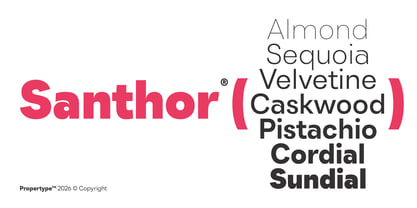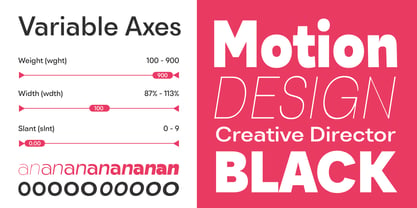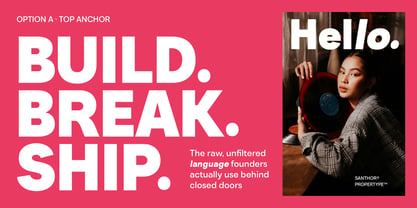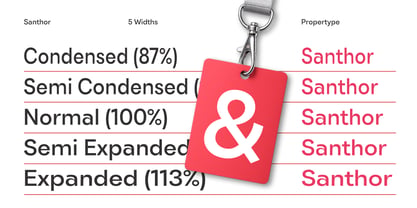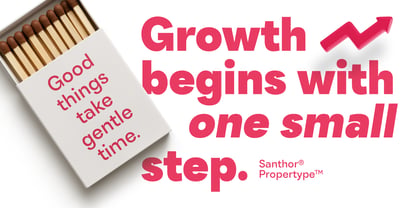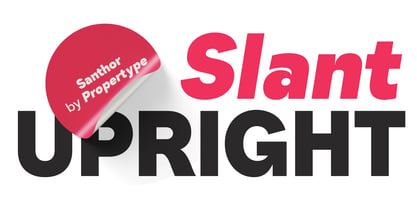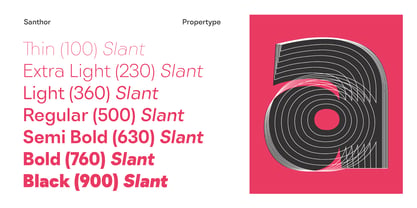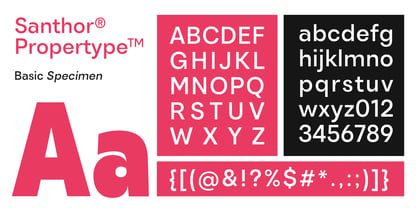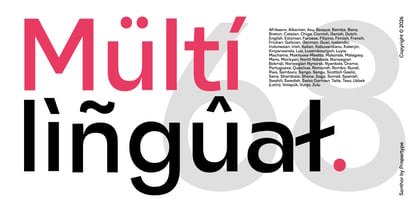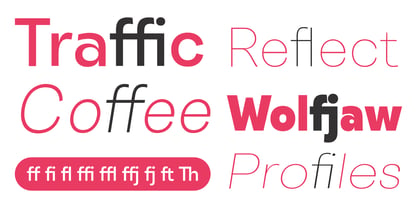
Santhor
by Propertype
The Santhor Font Family was designed by Nadia Auliana and published by Propertype. Santhor contains 140 styles and family package options. More about this family
Santhor Sans is a high-contrast typeface inspired by transitional and contemporary typefaces. This typeface expands its use by offering weights ranging from thin to black. Natural curves, bulging stems, and slants become more prominent as the letter thickness increases. Thinner thicknesses, on the other hand, have lower contrast and optical correction to create a warm and soft appearance. It features beautiful italics, excellent weight, and extensive language support.
Santhor Sans excels in display settings such as titles, subheadings, branding projects, logo design, packaging, magazine headlines, advertisements, and short or long texts.
Capital Characters
Lowercase Characters
Numbers and Ligatures
Multilingual Support
Santhor Sans Text also comes with 70 Variable versions to make it easy for designers to explore and refine beautiful designs, revealing many visual nuances and hidden secrets.
Designers: Nadia Auliana
Foundry: Propertype